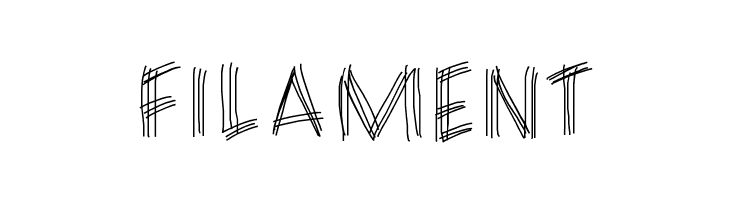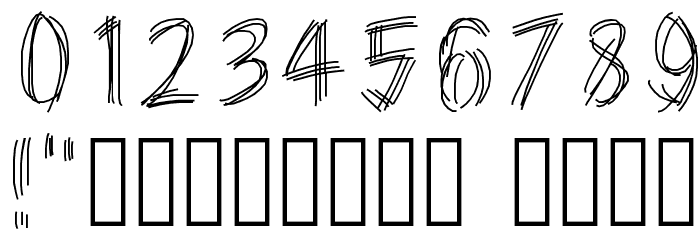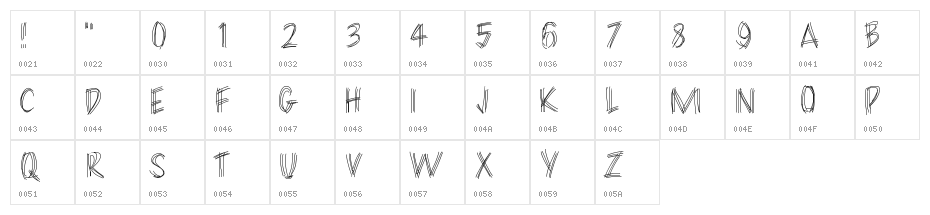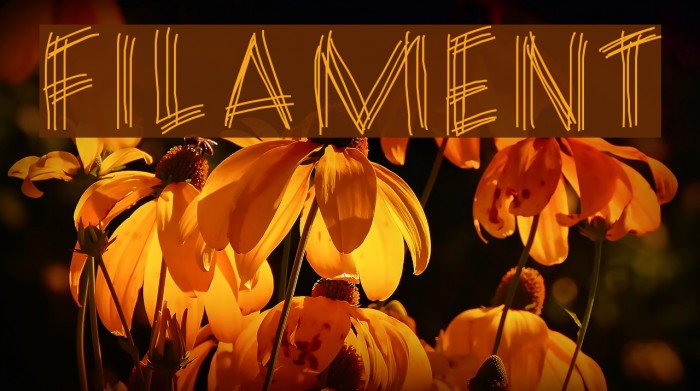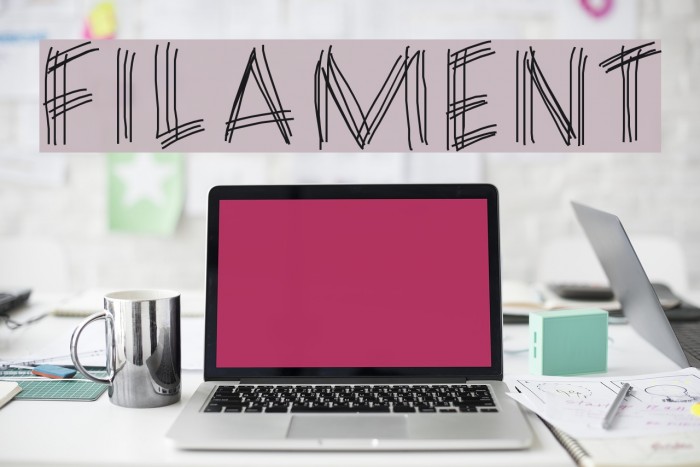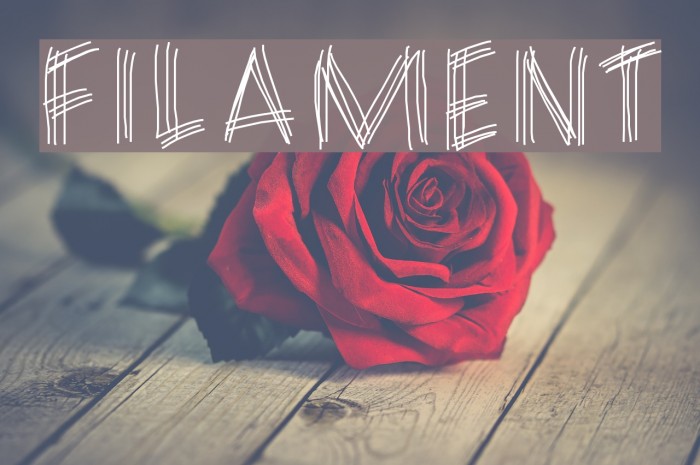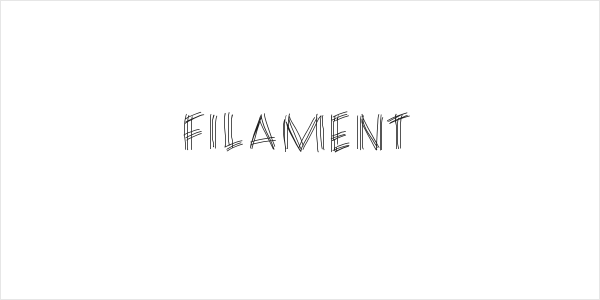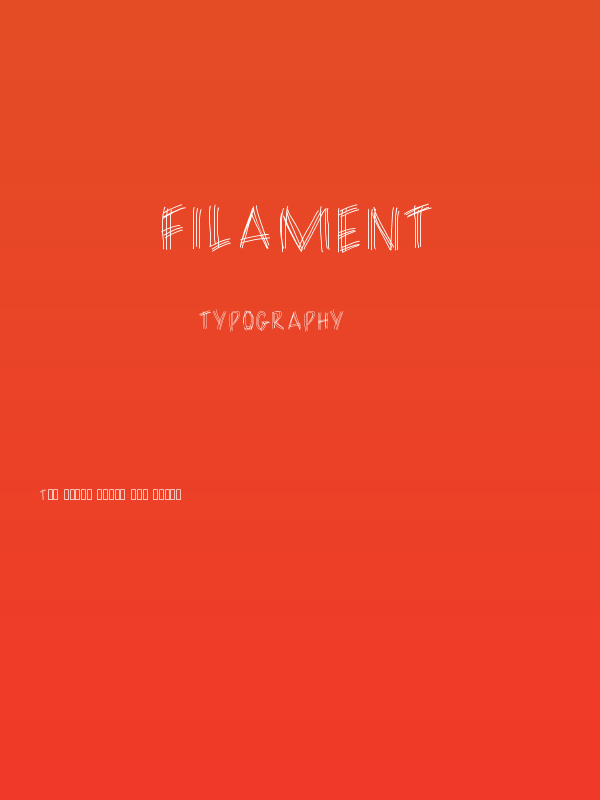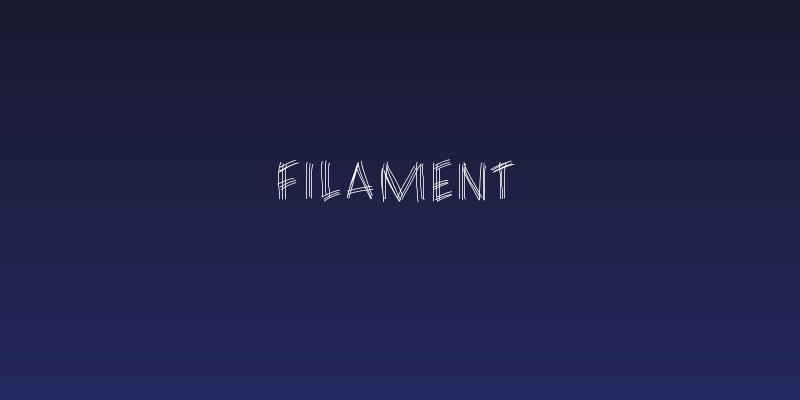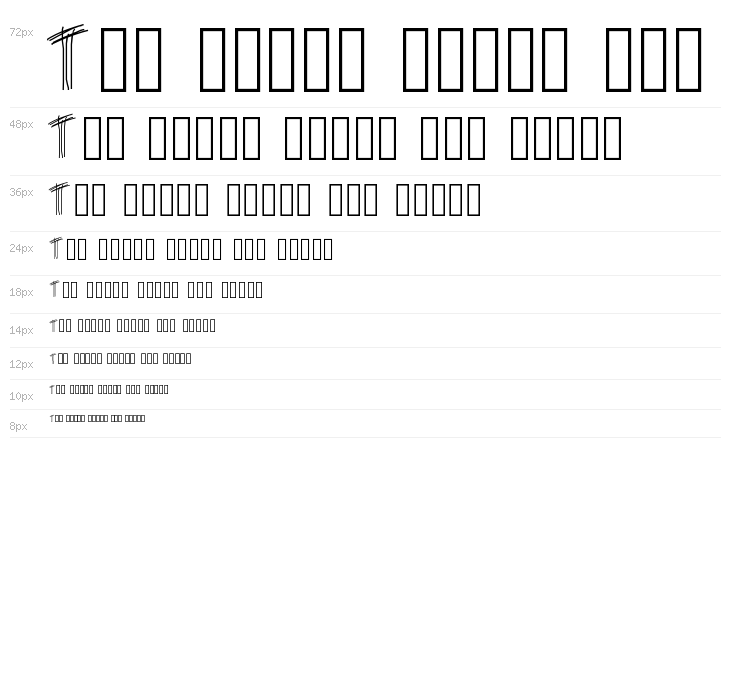
FILAMENT Font
FILAMENT Description
This font features a unique, hand-drawn style with a sketch-like appearance. Each character is composed of multiple overlapping lines, giving it a dynamic and textured look. The uppercase letters are bold and expressive, while the numbers maintain the same artistic flair. The font does not include lowercase letters or special characters, focusing instead on a distinctive uppercase and numeric set. This artistic style is reminiscent of rough sketches or doodles, making it stand out with its creative and informal vibe.
| Overall Style | Artistic, Sketch-like |
| Use Case | Headlines, Artistic Branding |
| Proposed Projects | Ideal for creative projects such as posters, artistic branding, and unique invitations. |